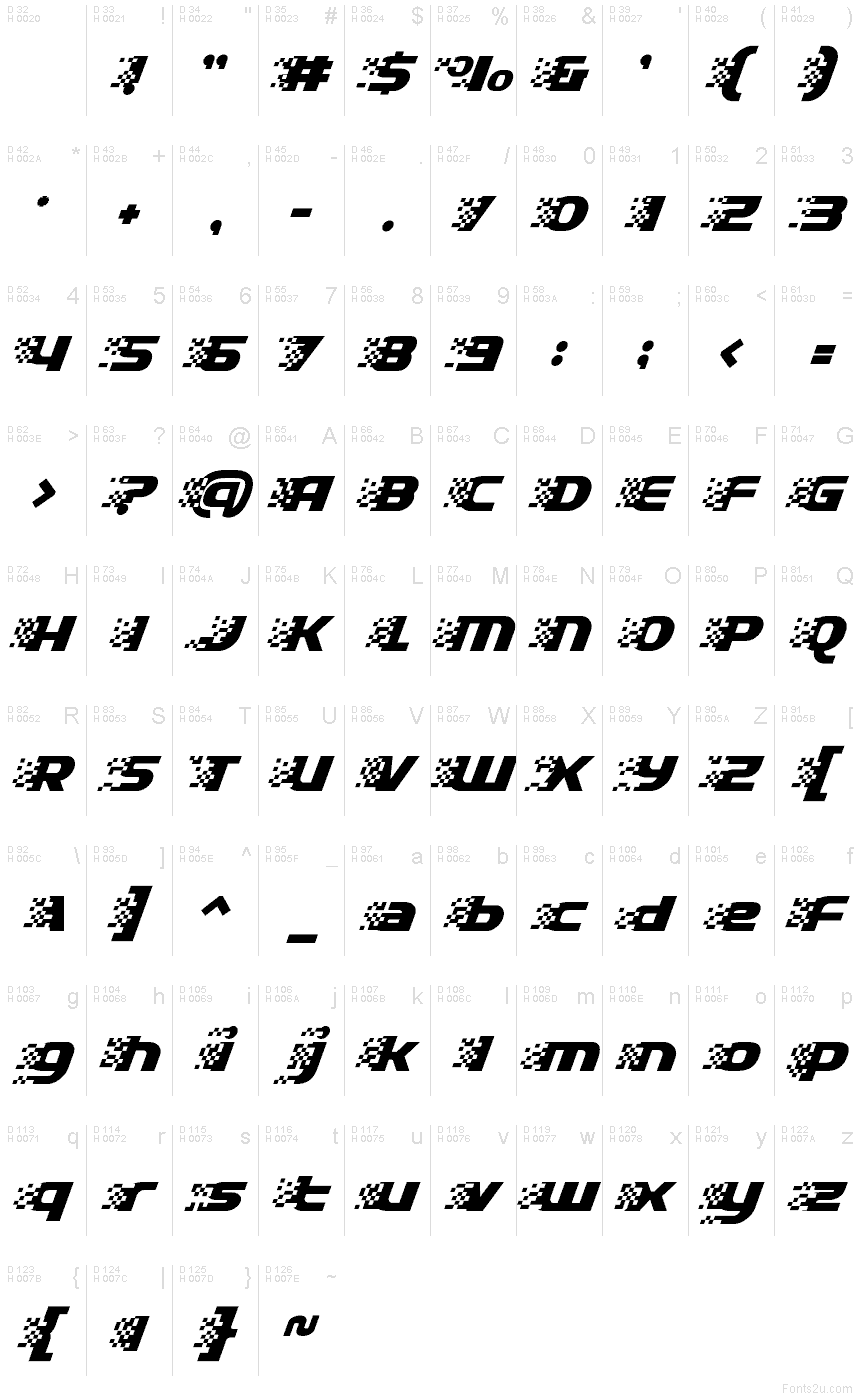
Rapido Racers Five
Rapido Racers Five font by PutraCetol Studio is a free techno display font with a bold weight and expanded width. This sporty typeface oozes energy through its italic orientation, mechanical influence, and retro aesthetic. Its imaginative geometric design is a true representation of creativity meeting functionality in the world of typography.
It’s perfect for futuristic branding, car blogs/magazines, sci-fi book covers, marketing materials, website headers/footers, social media content creation (Instagram stories/posts), motivational posters or banners/stands at events/public spaces such as offices.